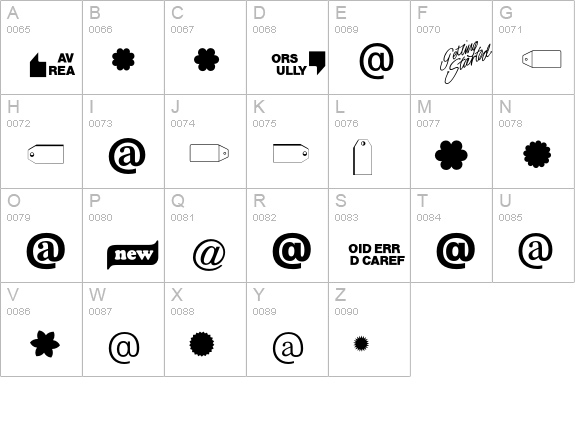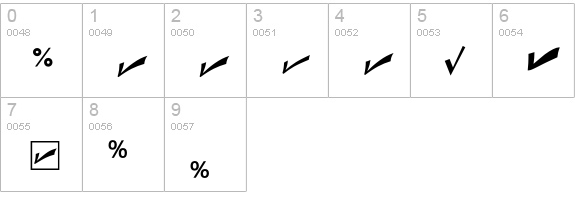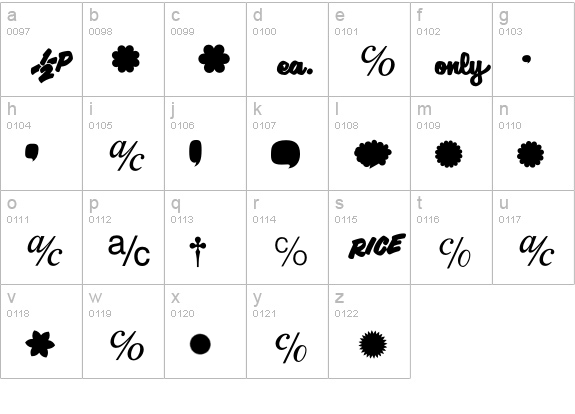
CommercialP01 Font Details
CommercialP01 is a versatile and modern font that exudes sophistication and elegance. With its clean lines and contemporary aesthetic, this font is perfect for a wide range of commercial and creative projects. Whether you are designing a logo, creating advertising materials, or crafting a website, CommercialP01 will add a touch of professionalism to your work. The best part? CommercialP01 is available for free download at FontsMarket.com. Now you can elevate your designs without breaking the bank. Don't miss out on this opportunity to enhance your projects with the sleek and stylish CommercialP01 font. Download it today and see the difference it can make in your work.